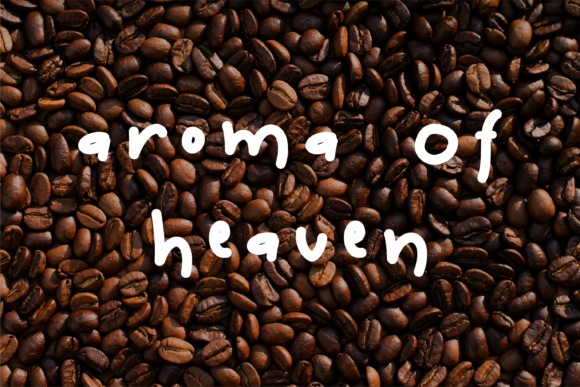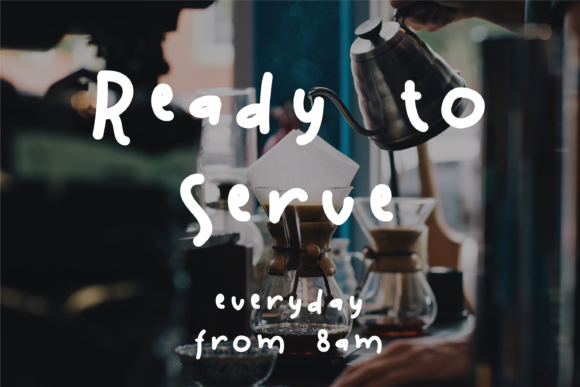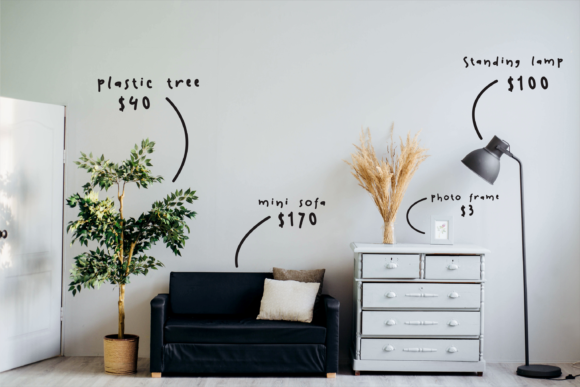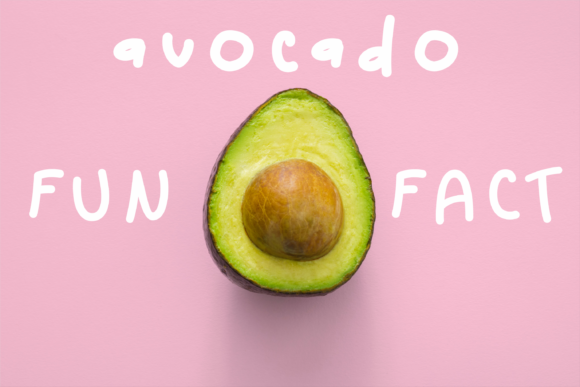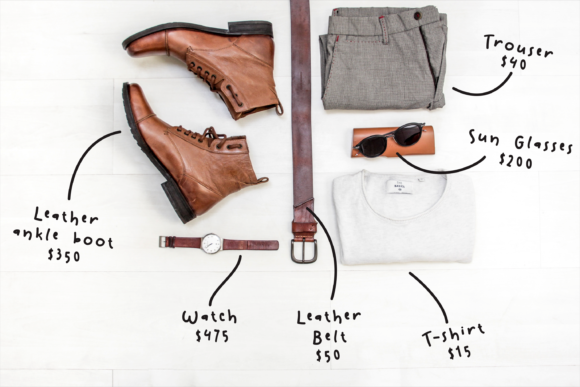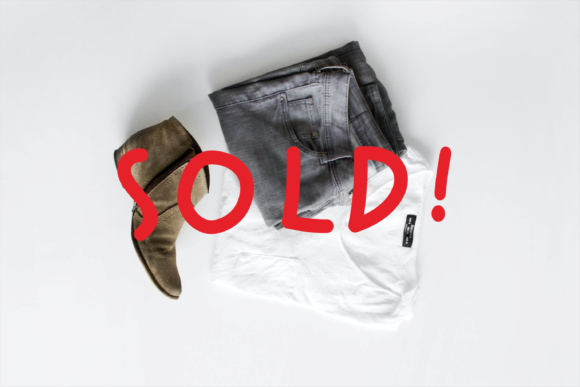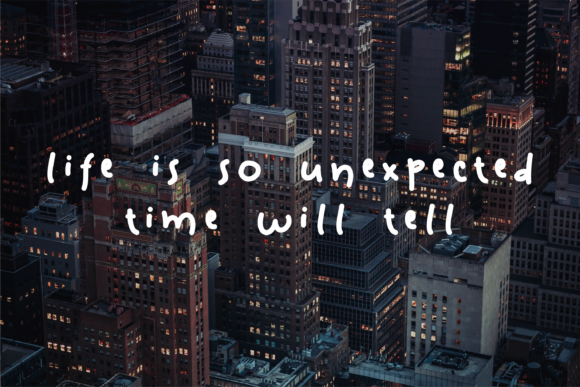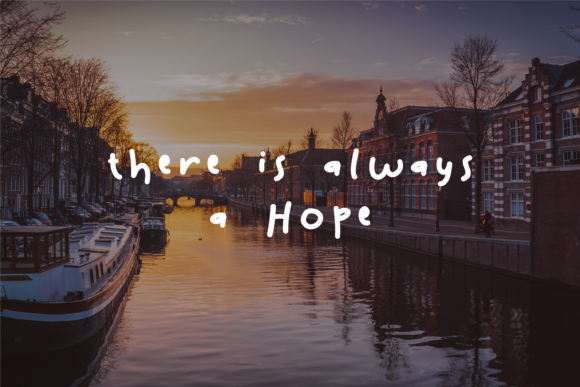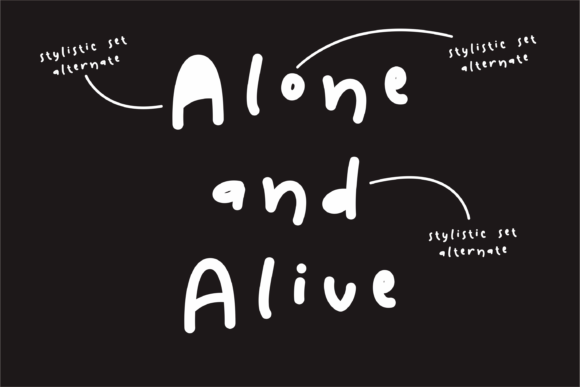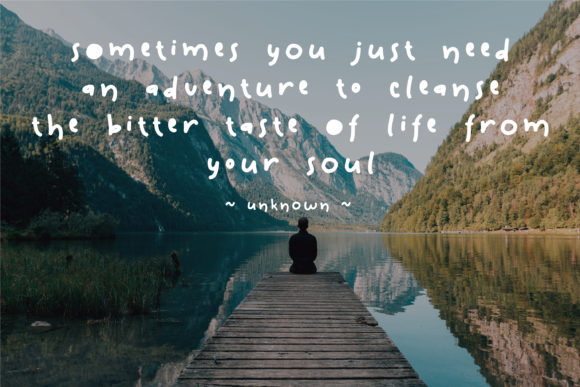
Introvert Font
About Introvert Font
Introvert is a cute and friendly handwritten font. A little bit quirky, this font looks incredibly adept on a wide variety of contexts!